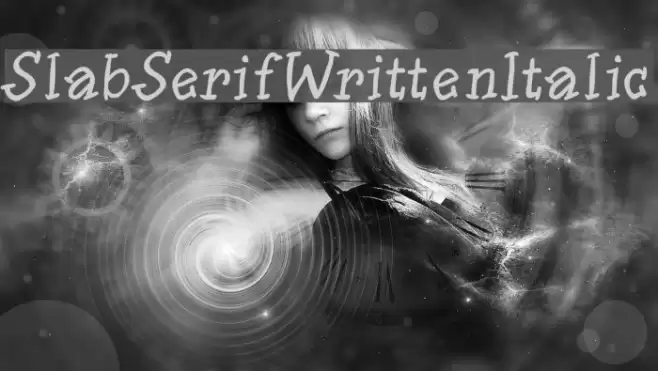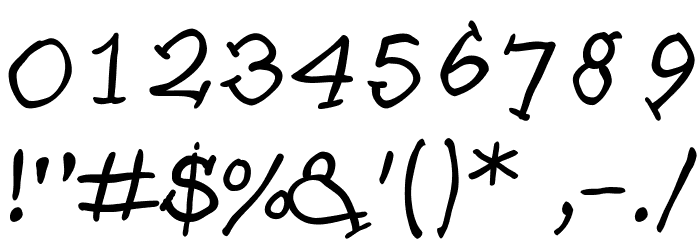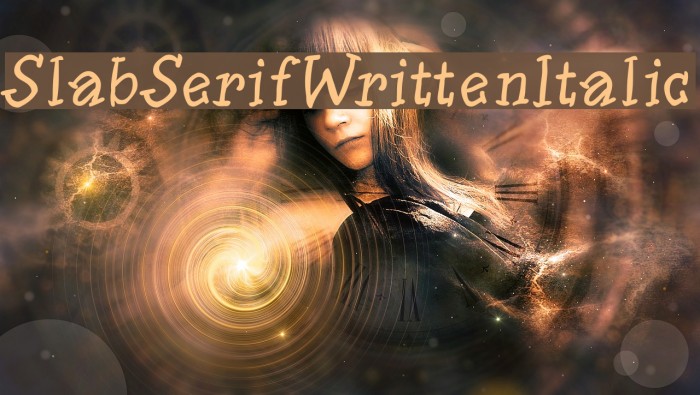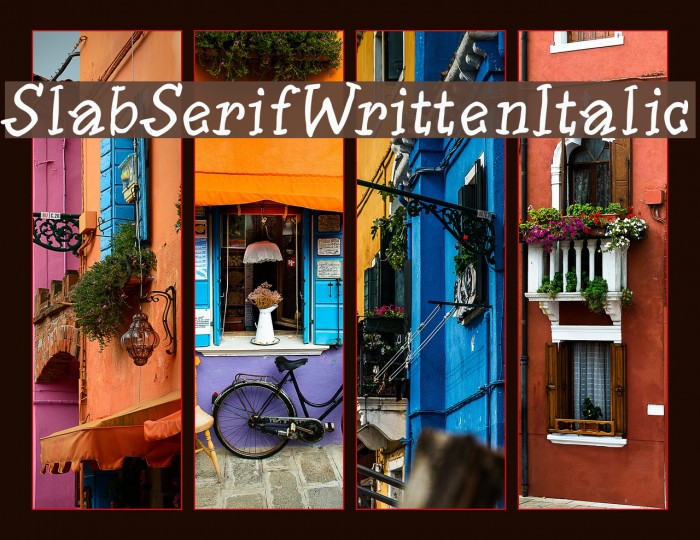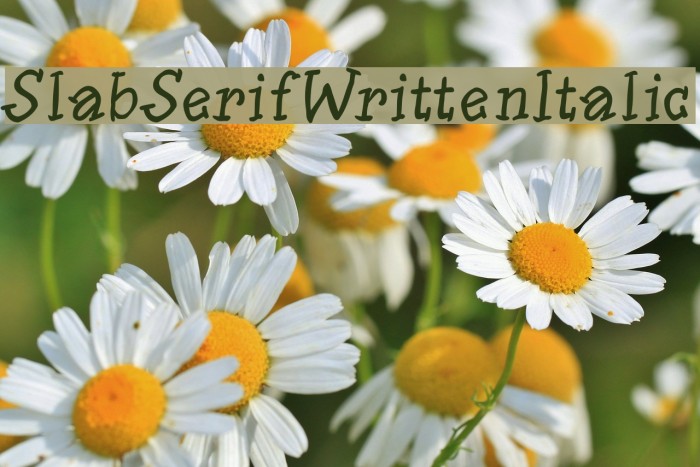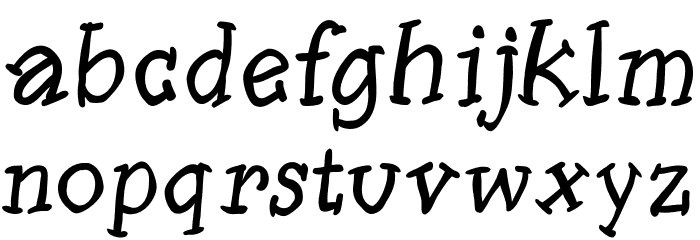
SlabSerifWrittenItalic Font
SlabSerifWrittenItalic Description
This font features a playful and dynamic style with a handwritten appearance. The letters are slightly slanted, giving it an italicized look, while maintaining a slab serif structure. The strokes are uneven, adding a casual and informal touch. The uppercase letters are bold and prominent, while the lowercase letters retain a consistent flow. Numbers and special characters are designed with the same playful characteristics, making them stand out. This font is perfect for projects that require a personal and approachable feel.
A playful, handwritten slab serif font with an italicized style from Uncategorized fonts.
- Proposed Projects: Ideal for greeting cards, children's books, casual branding, and creative posters.
- Use Case: Headlines, Logos, Informal Text